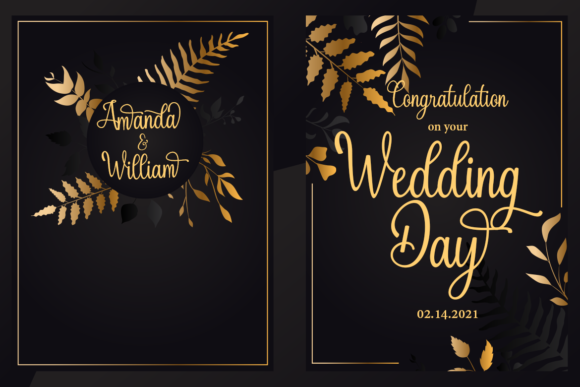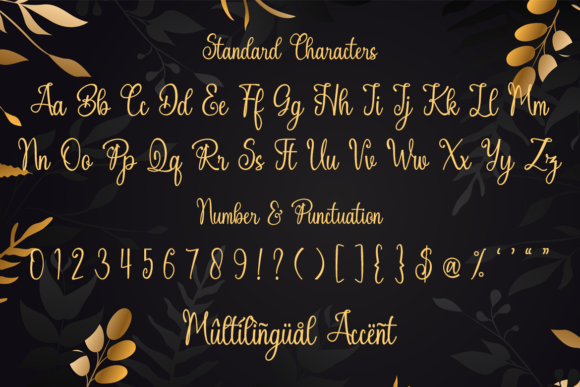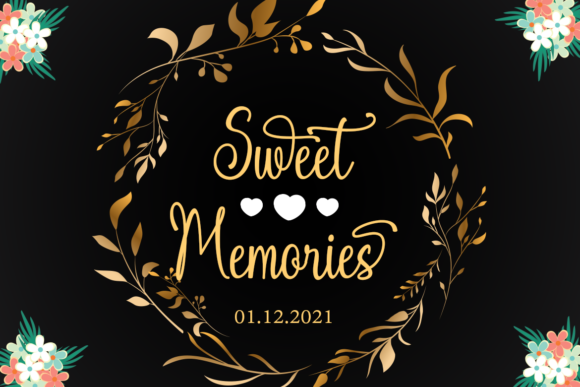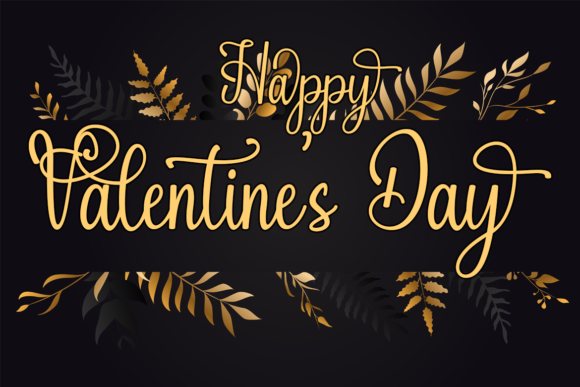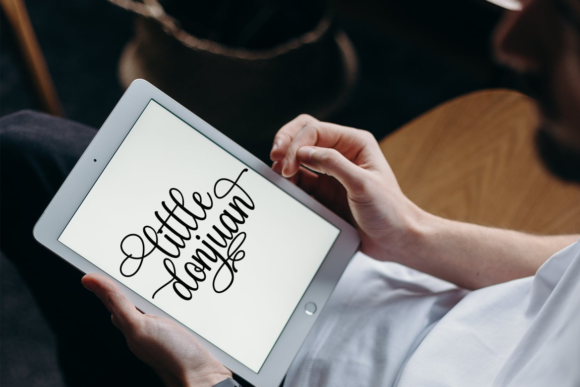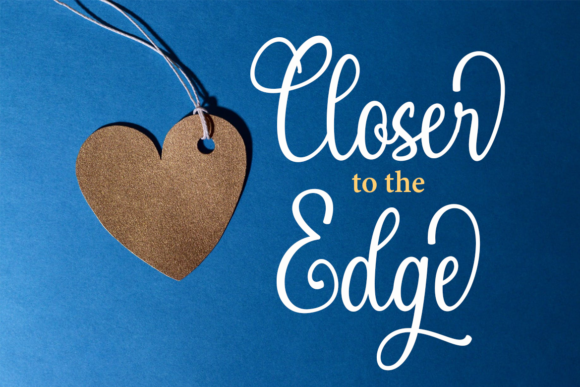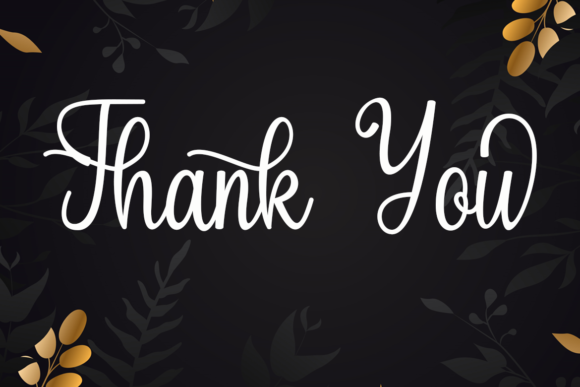
Little Donjuan Font
About Little Donjuan Font
“Little Donjuan” sounds like a ravishing and graceful cursive handwritten font that exudes beauty and elegance. With its well-balanced and beautiful characters, this font is a perfect match for a wide range of design projects. Its timeless style adds a touch of uniqueness and sophistication, making it perfect for creating spectacular and visually stunning designs.
By using “Little Donjuan” in your projects, you can achieve a sense of charm and refinement. Its cursive and handwritten appearance adds a personal and artistic touch, making your designs feel more intimate and special.
This font’s versatility shines through in various design contexts. Whether you’re working on branding, wedding invitations, logos, or any other project, “Little Donjuan” can effortlessly enhance the visual appeal and create a lasting impact.
With “Little Donjuan,” you have access to a wide range of glyphs and swashes, thanks to its PUA encoding. This feature empowers you with creative freedom to explore various stylistic variations and decorative elements, allowing you to create truly unique and captivating designs.
Incorporate “Little Donjuan” into your projects, and you’ll fall in love with its beauty and timelessness. It will undoubtedly become the font that brings a touch of elegance and sophistication to your creations, making them spectacular and visually enchanting.
In conclusion, “Little Donjuan” is a ravishing, graceful, and cursive handwritten font that can elevate your design projects to new heights. Embrace its timeless style, and let it be the font that brings beauty and sophistication to your creative ideas. With “Little Donjuan,” your designs will mesmerize and captivate your audience, leaving a lasting impression and becoming truly exceptional works of art.